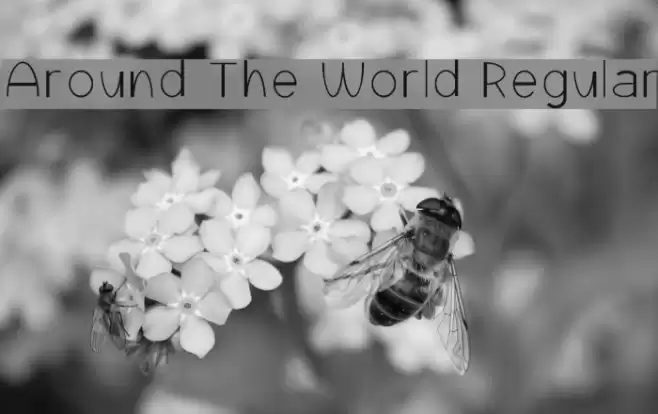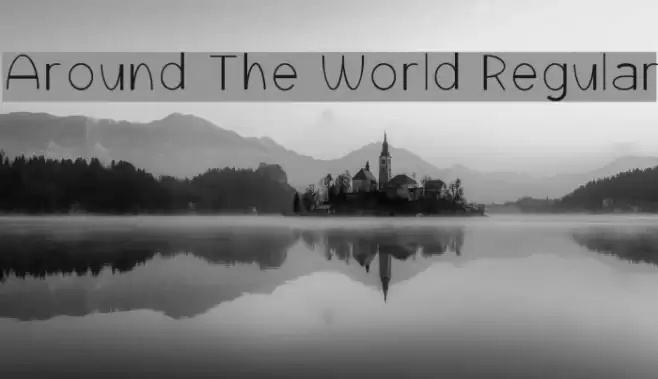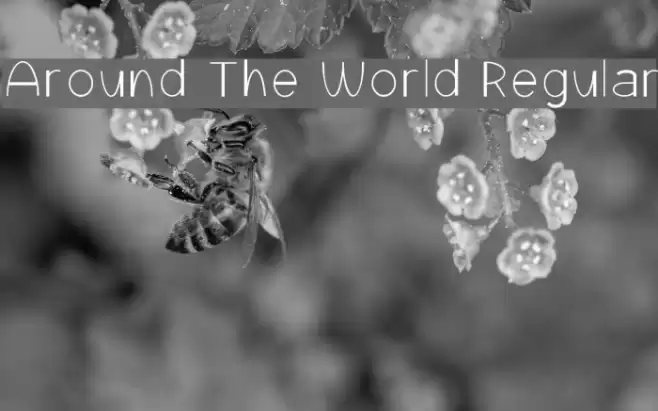
Around The World Regular Font
Around The World Regular Description
This font features a clean and modern sans-serif style with a geometric influence. The characters are evenly spaced, providing a balanced and harmonious appearance. The uppercase letters are slightly taller than the lowercase, giving a distinct hierarchy. The strokes are consistent in width, offering a uniform look across all characters. The rounded edges on certain letters add a touch of softness, while the overall structure remains sleek and contemporary. This font is versatile, suitable for various design applications where clarity and modernity are desired.
A clean, modern sans-serif font with geometric influences and consistent stroke widths from Uncategorized fonts.
- Proposed Projects: Ideal for branding, web design, advertising, and editorial layouts where a modern and clean aesthetic is required.